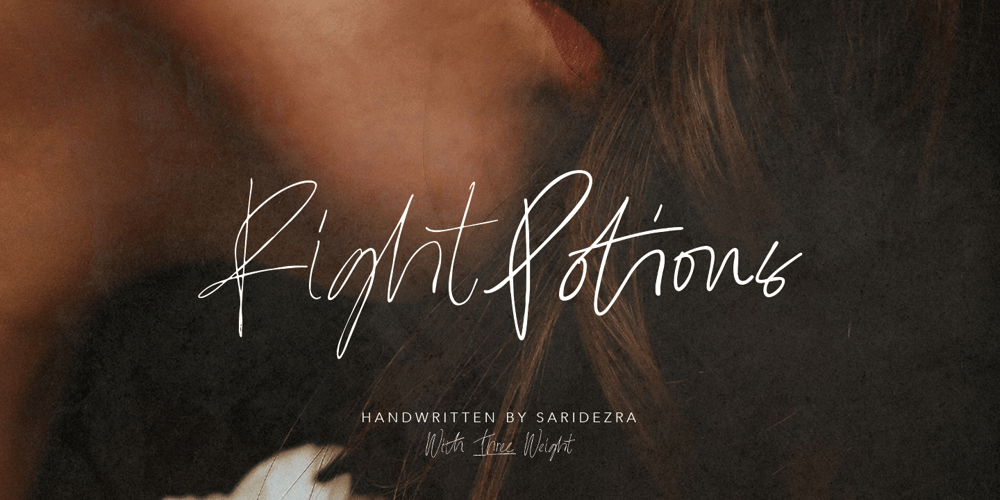
Right Potions Font Family was designed by Sarid Ezra and published by Sarid Ezra. Right Potions contains 3 styles and family package options. Introducing, Right Potions, handwritten script family!Right Potions is a handwritten script family contains three weight from light to bold. With ligatures and underline, this fonts will make your design more naturally handwritten. You can use this fonts to make logo and branding, magazine, aesthetic post, and also handwritten quote. Right Potions also support multilingual!Foreign Languages Support: ÀÁÂÃÄÅÇÈÉÊËÌÍÎÏÐÑÒÓÔÕÖØÙÚÛÜÝßàáâãäåæçèéêëìíîïðñòóôõöøùúûüýÿWhat Will You Get: Right Potions Light (TTF/OTF) Right Potions Regular (TTF/OTF) Right Potionsn Bold (TTF/OTF)